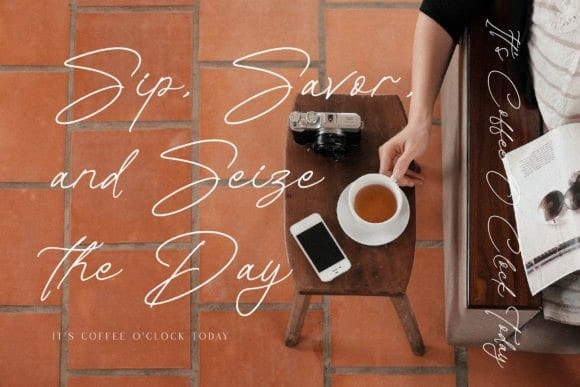
Sontheval Handwritten Font
Sontheval Handwritten Font is an exquisite handwritten font, masterfully designed to become a true favorite. It maintains its classy calligraphic influences while feeling contemporary and fresh. Fall in love with it and bring your projects to the highest levels!